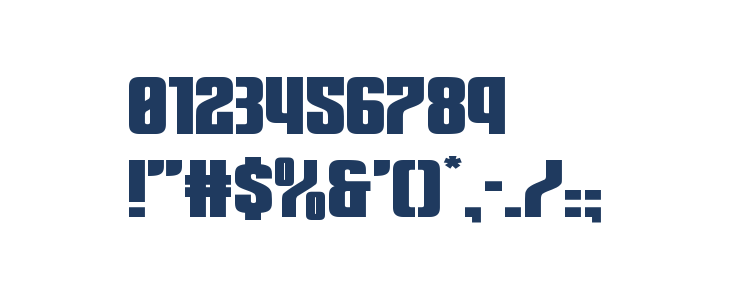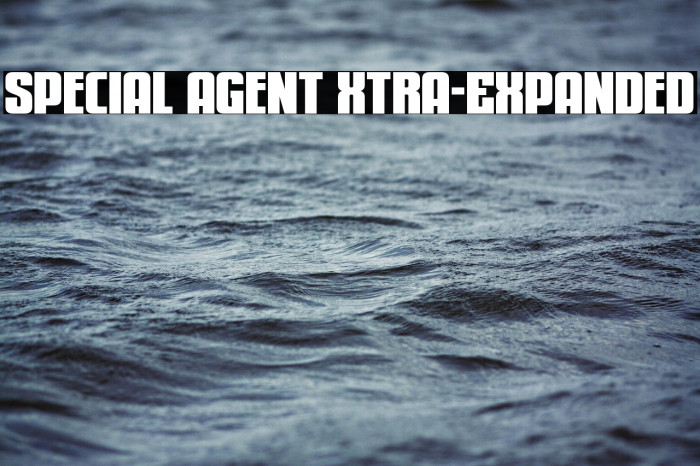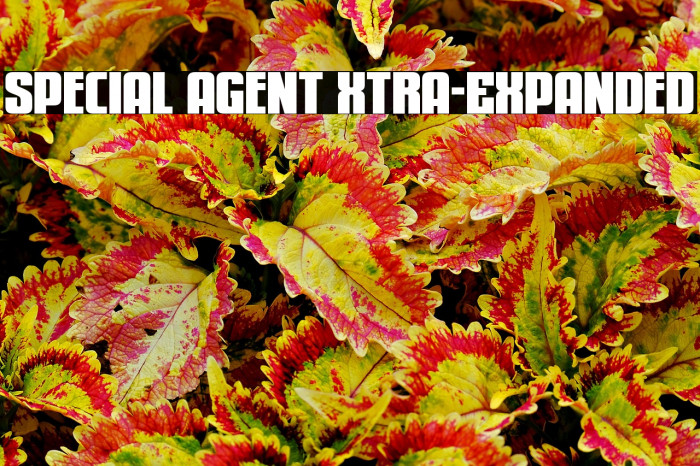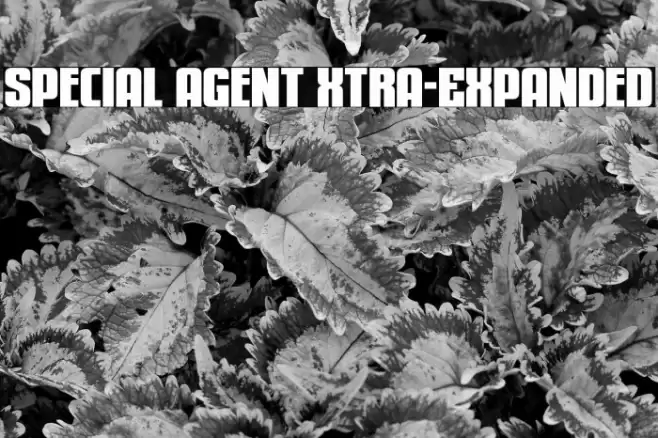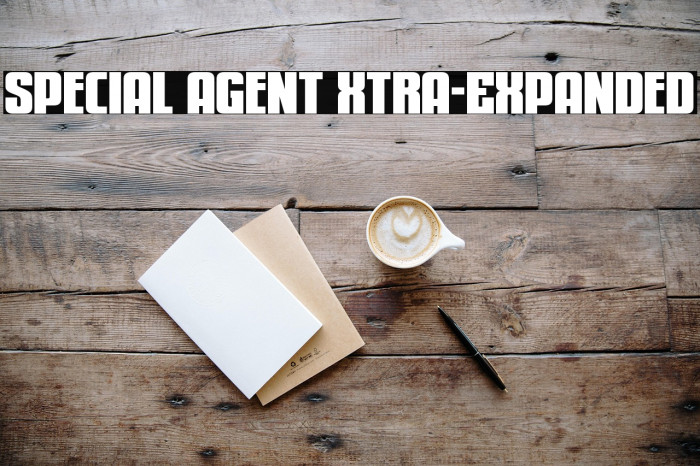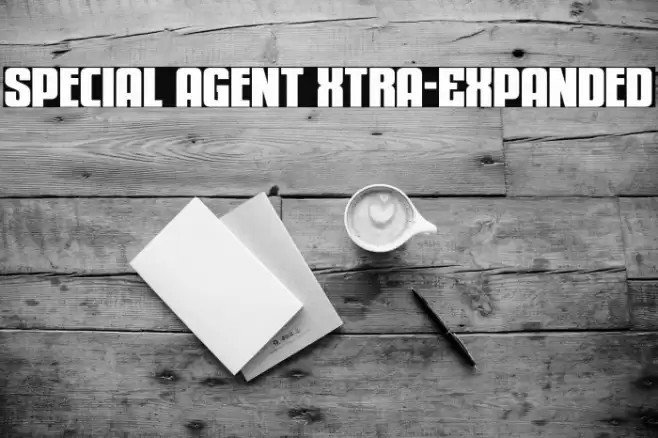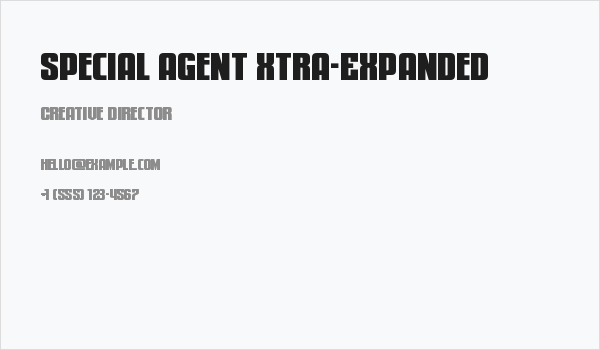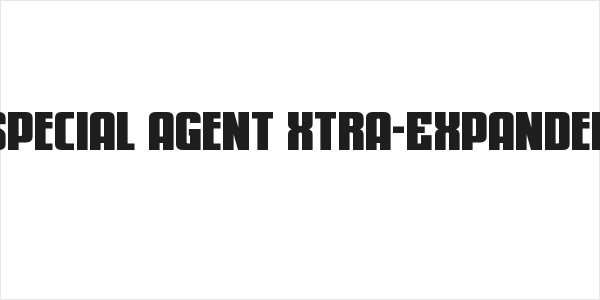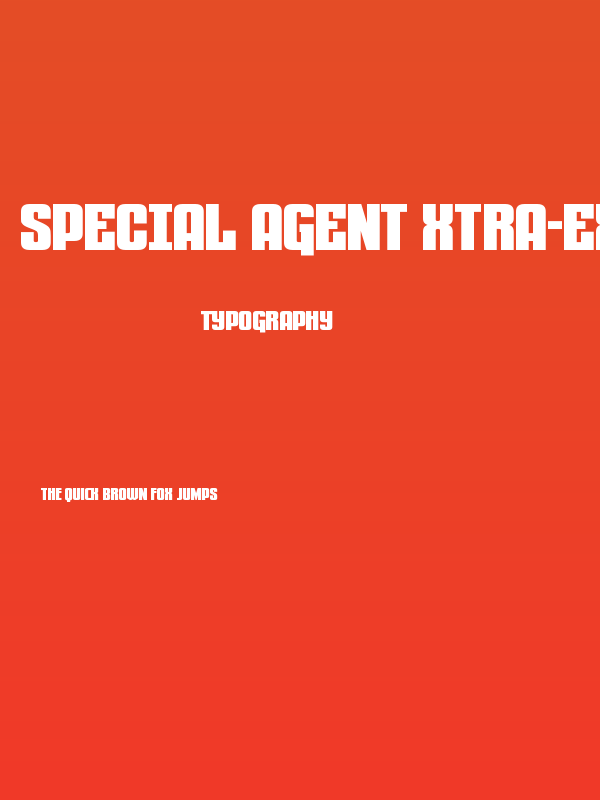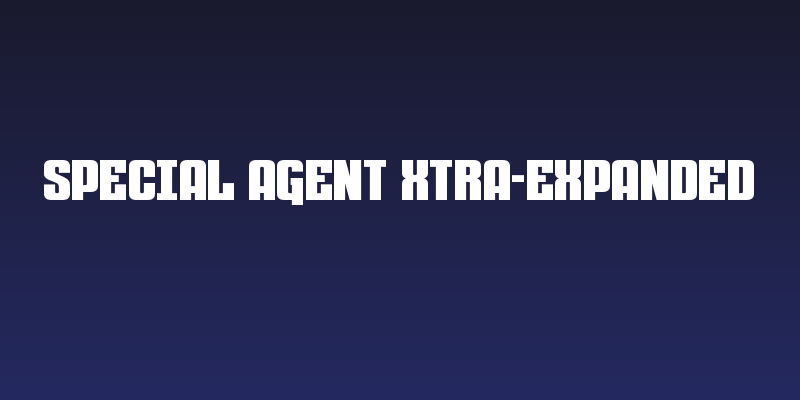
Special Agent Xtra-Expanded Font
Special Agent Xtra-Expanded Description
This font is a bold, expanded typeface with a strong presence. The characters are uniformly thick, creating a powerful and impactful look. The uppercase letters are particularly striking, with a geometric and blocky style that commands attention. The numbers and special characters maintain the same boldness, ensuring consistency across all text. This font is ideal for making a statement, with its wide and expansive design that fills space effectively.
| Proposed Projects | Ideal for posters, headlines, branding, and any project requiring a bold statement. |